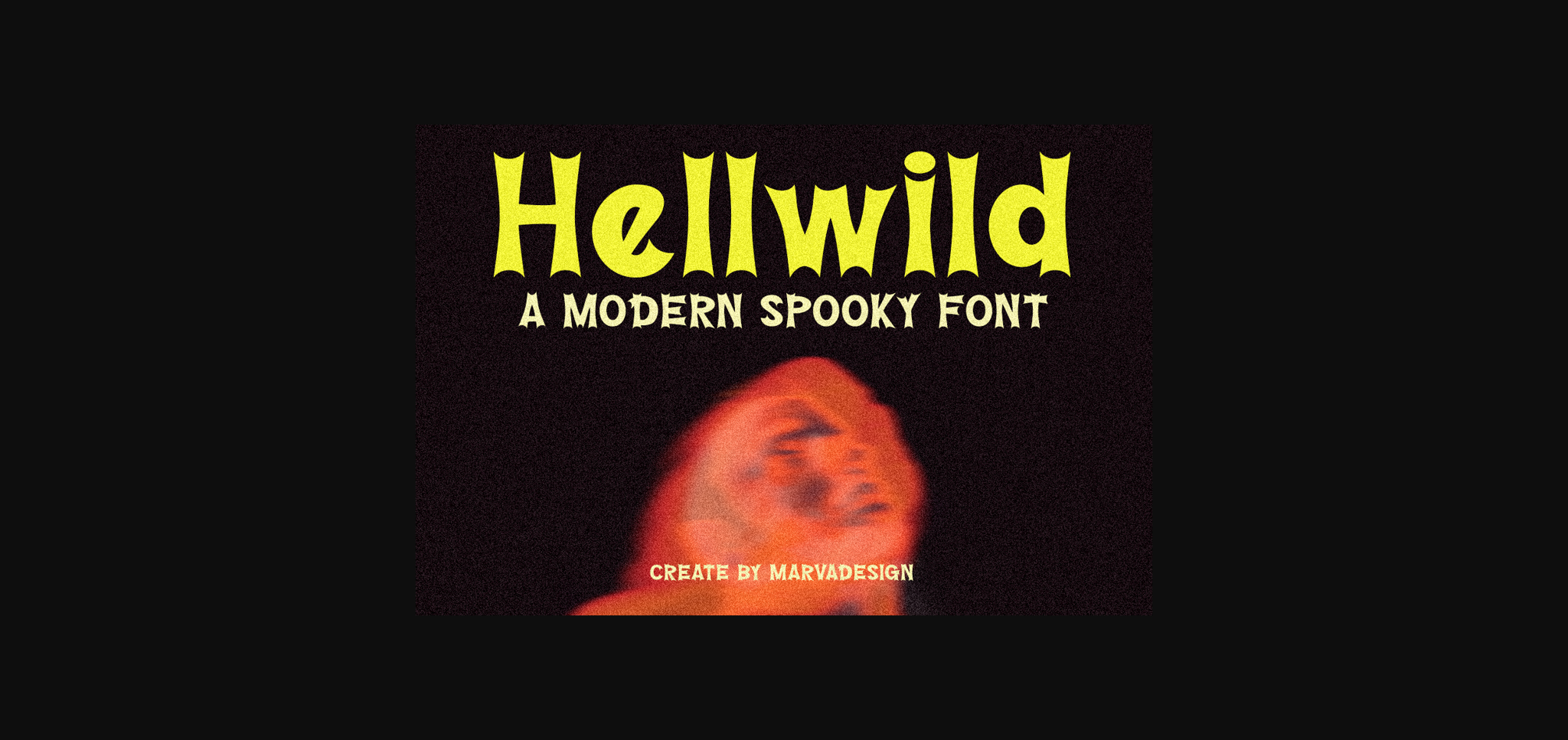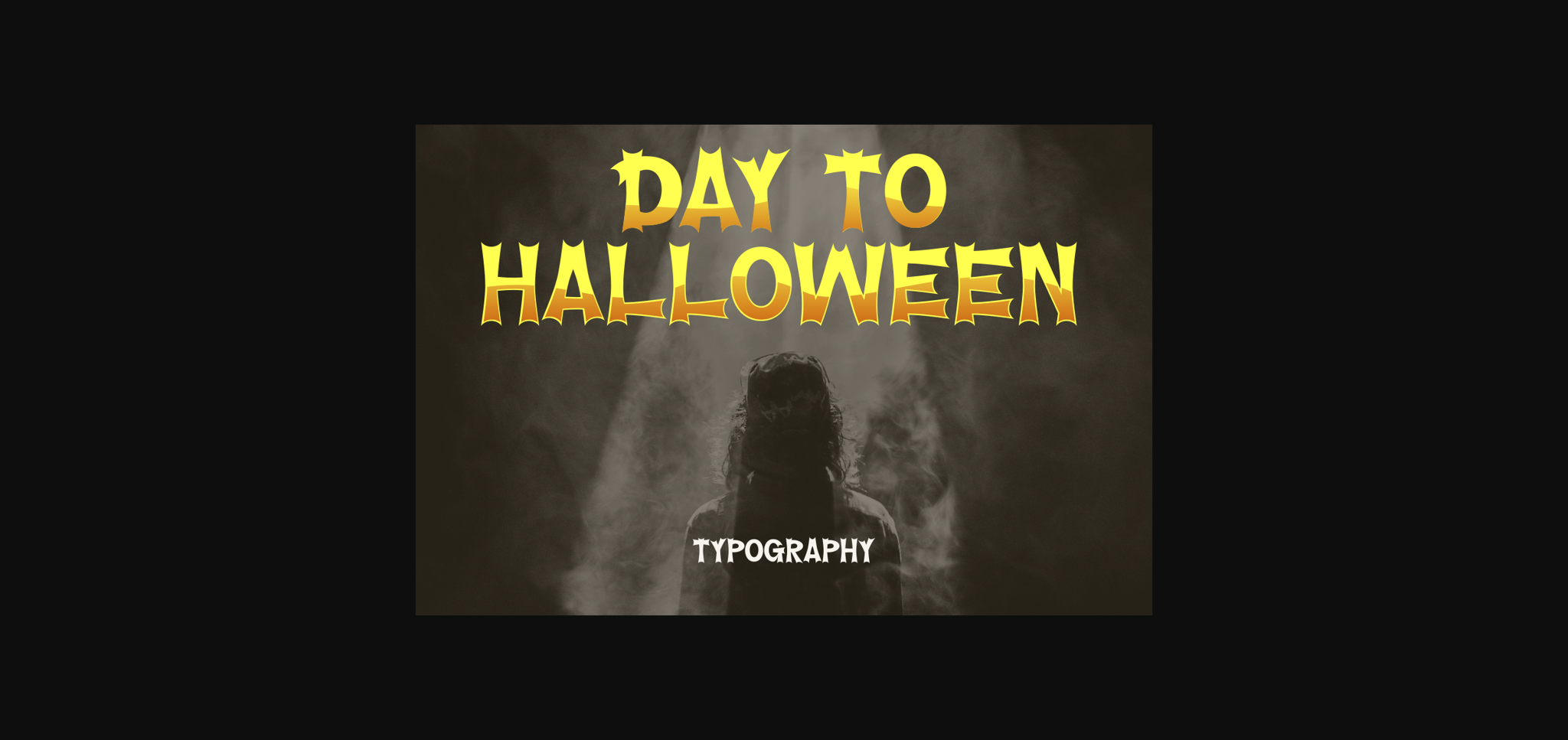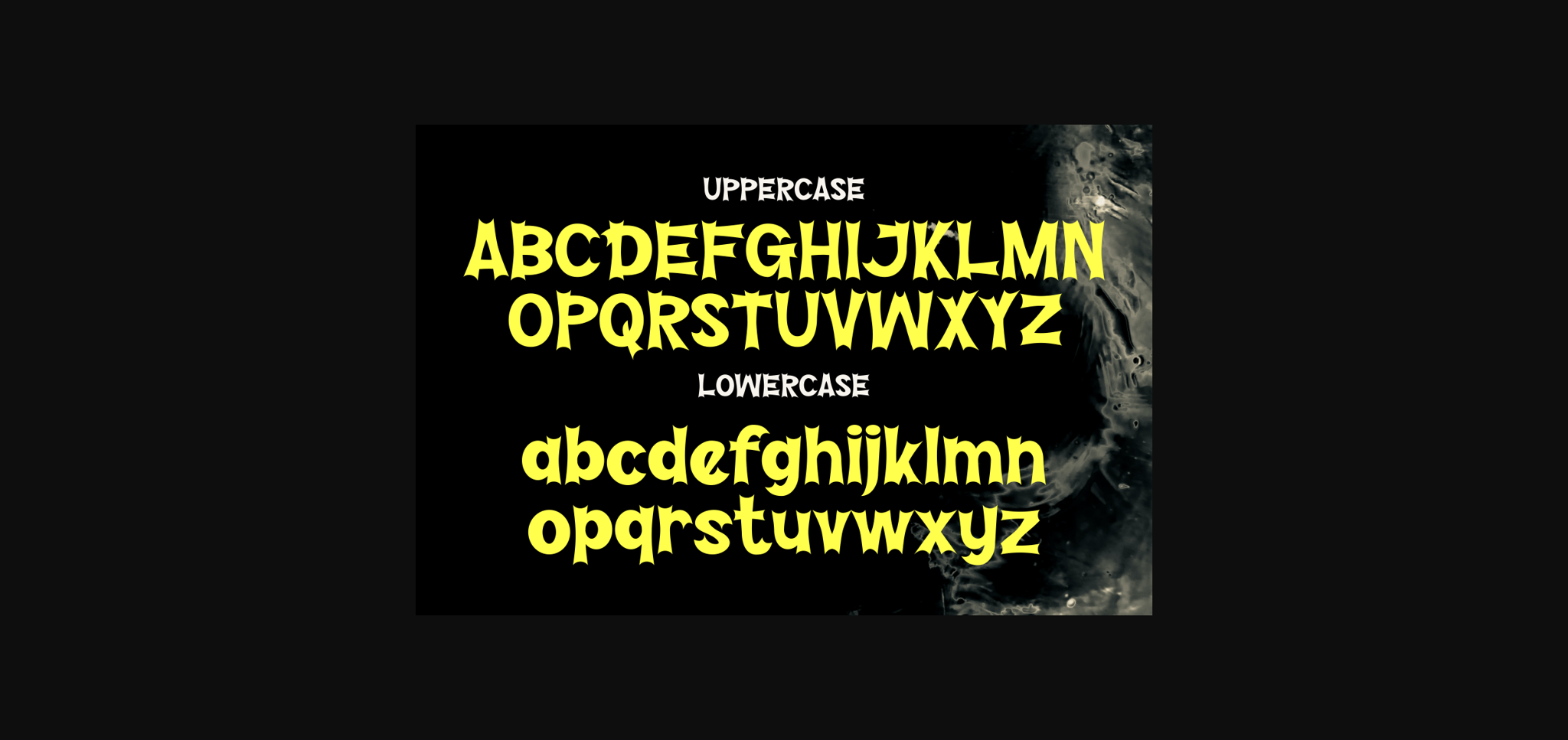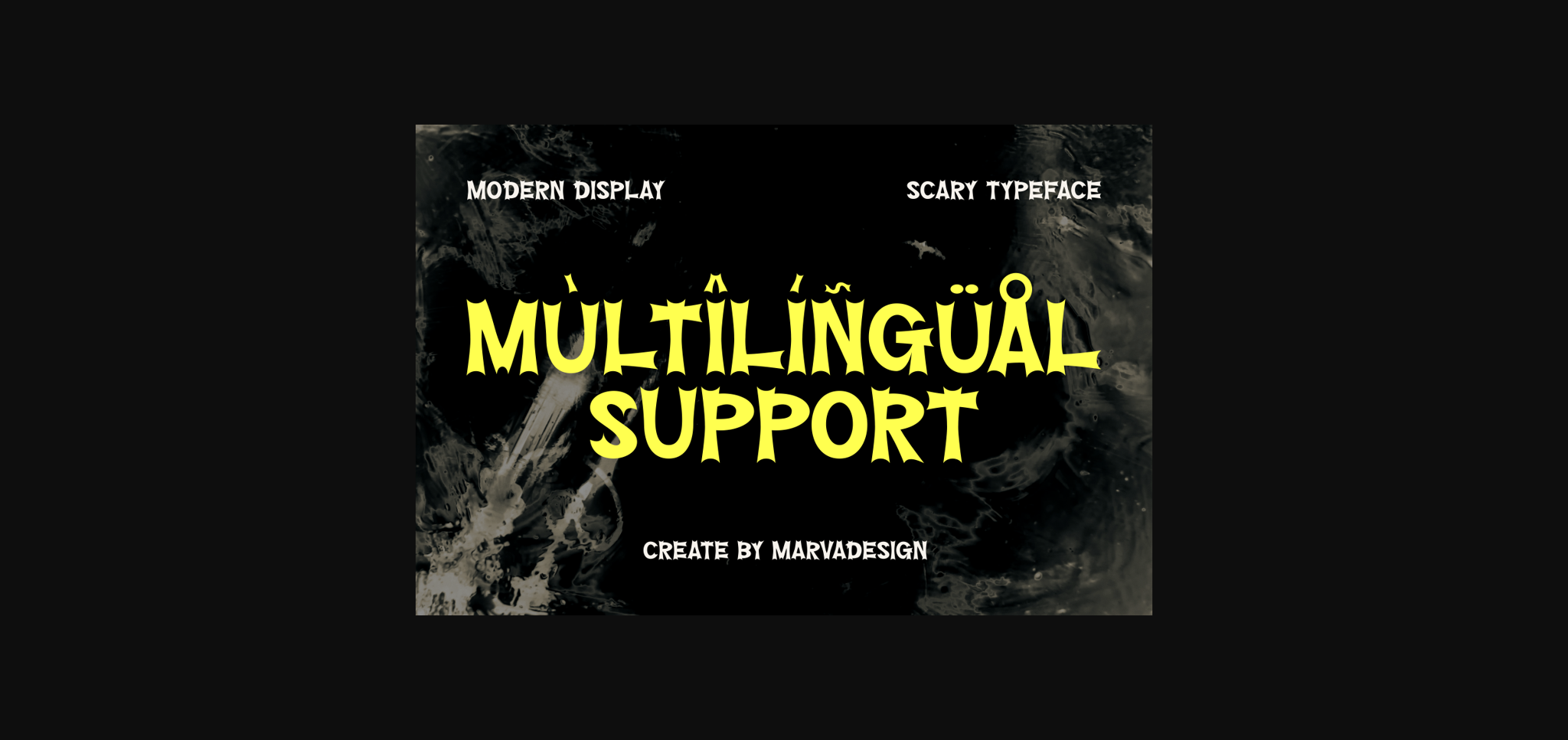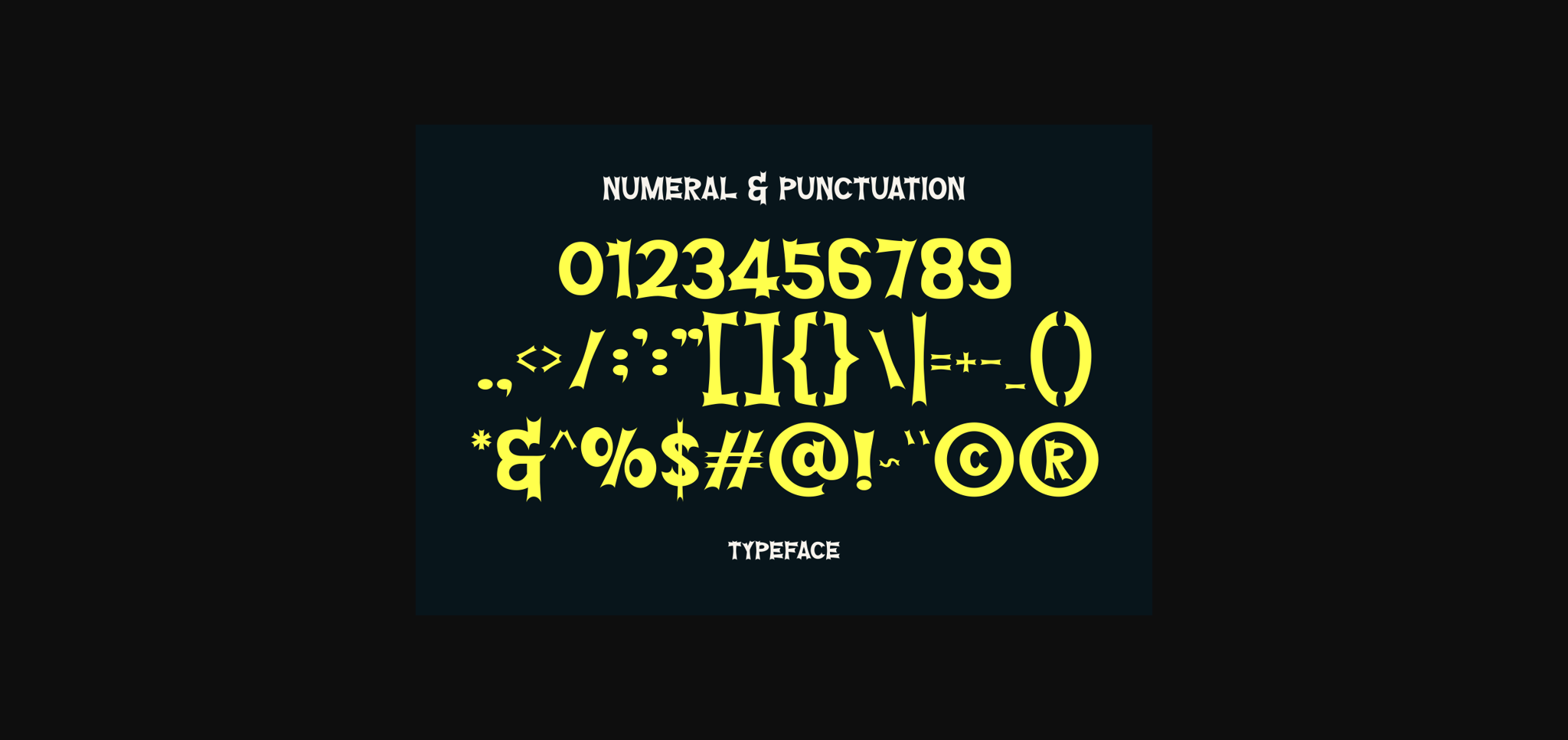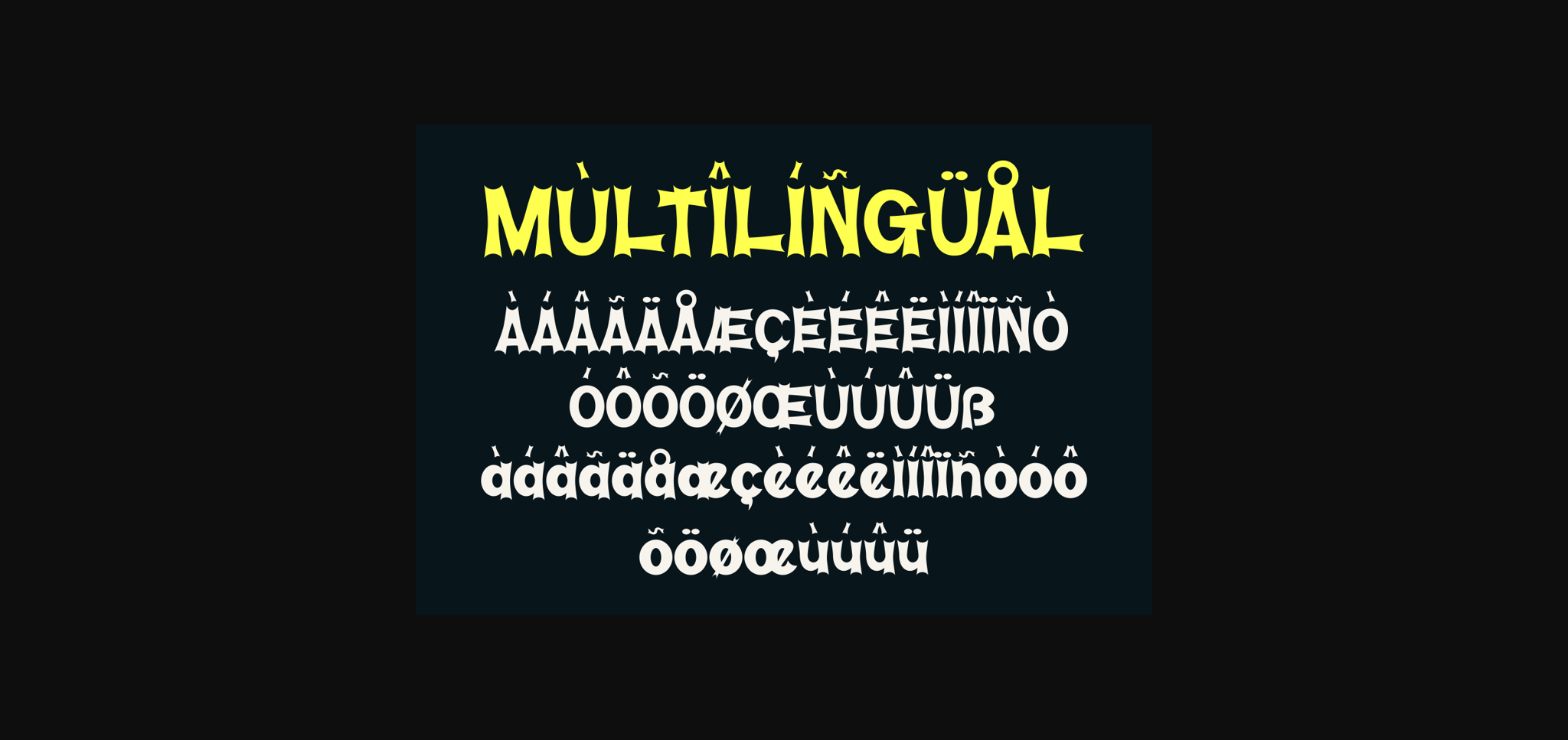
About Hellwild Font
Hellwild is a bold and assertive sans serif font. No matter the topic, this font will be an incredible asset to your fonts’ library, as it has the potential to elevate any creation.